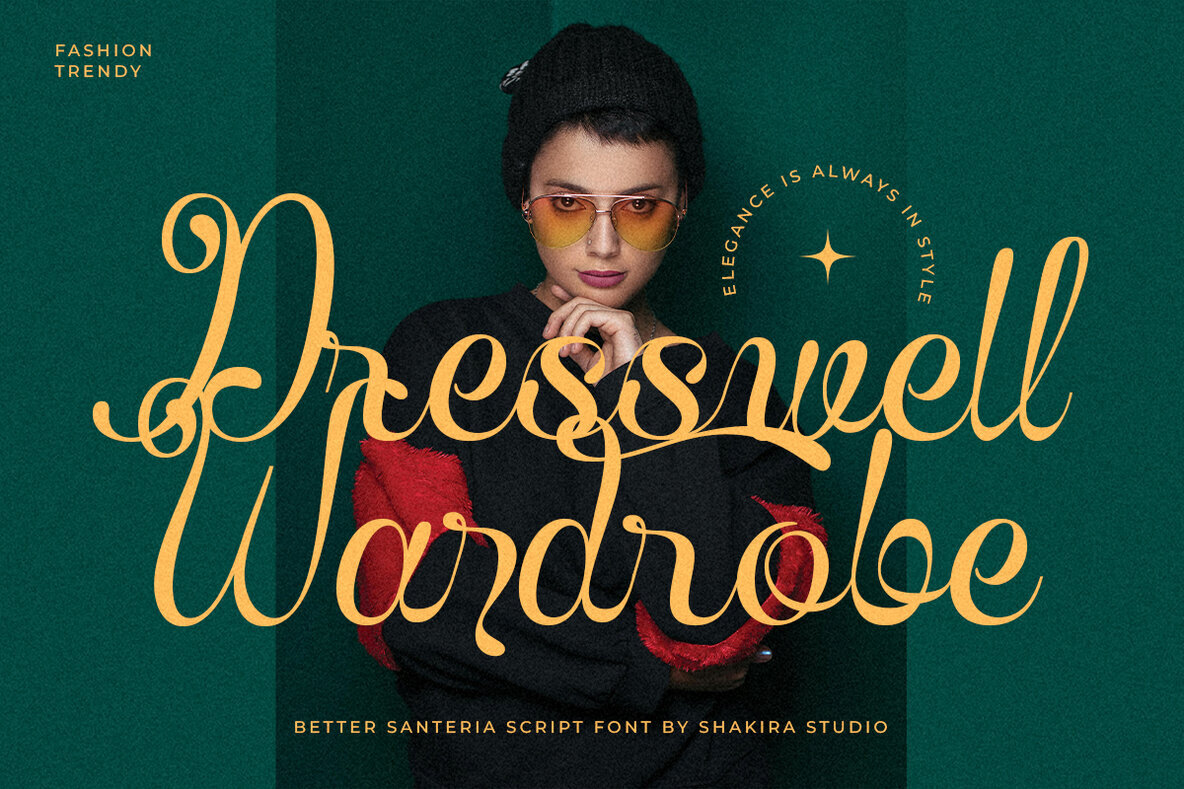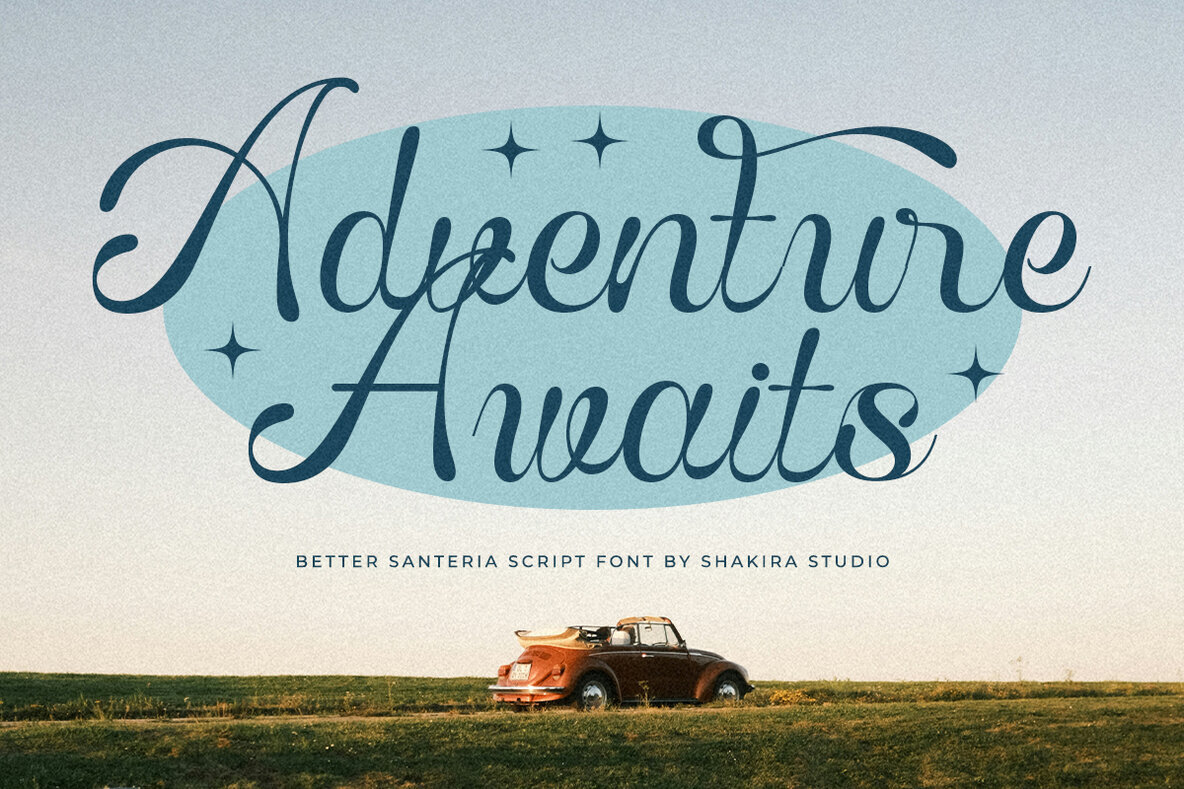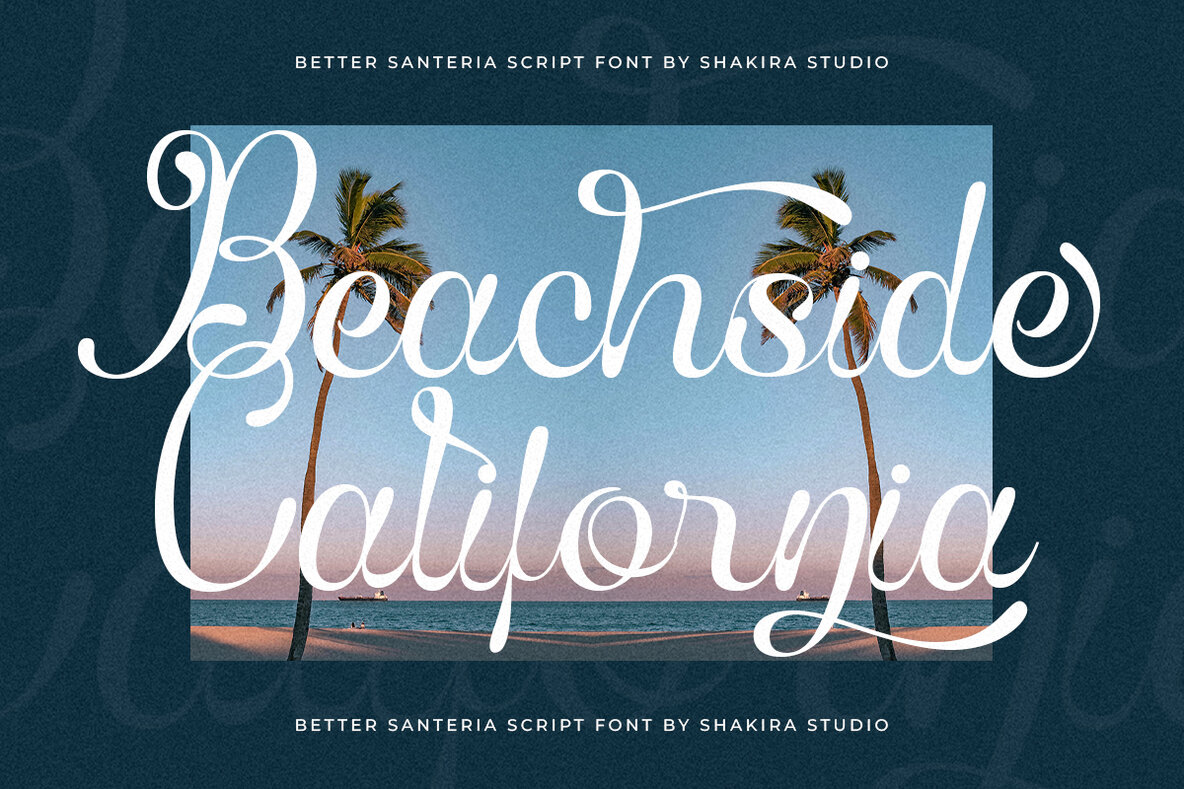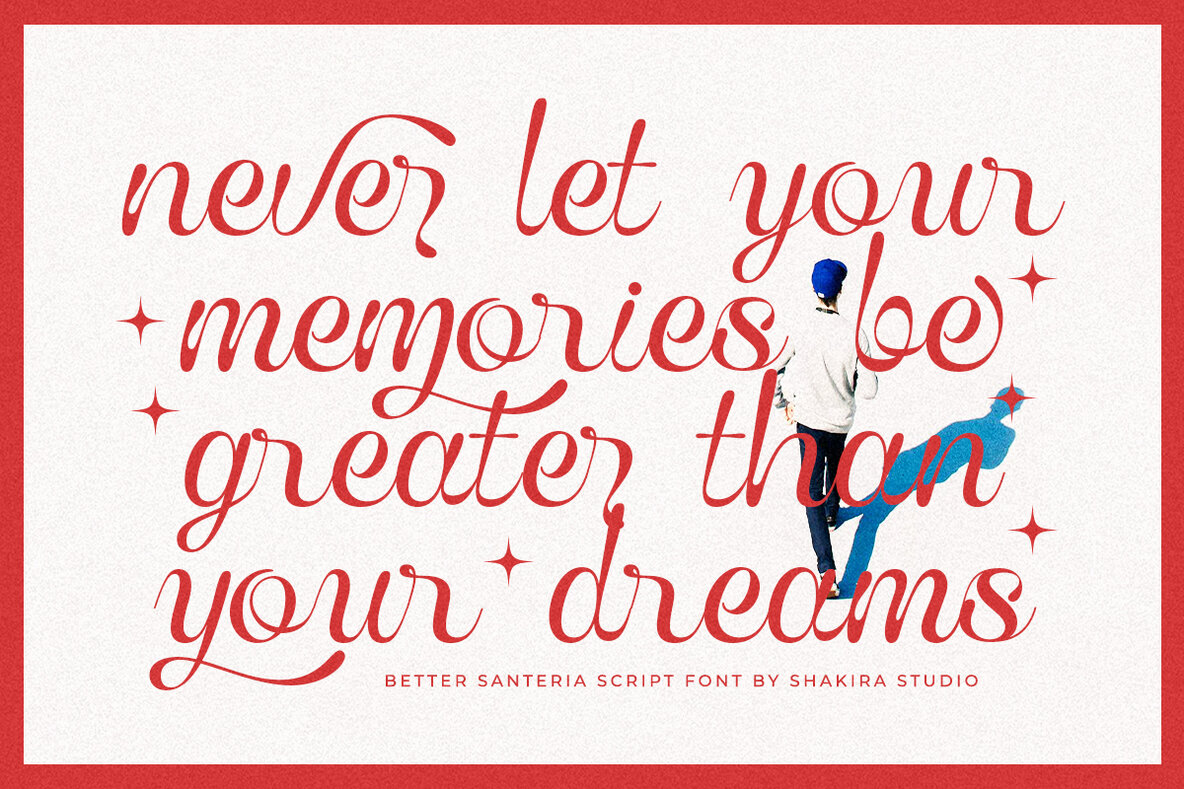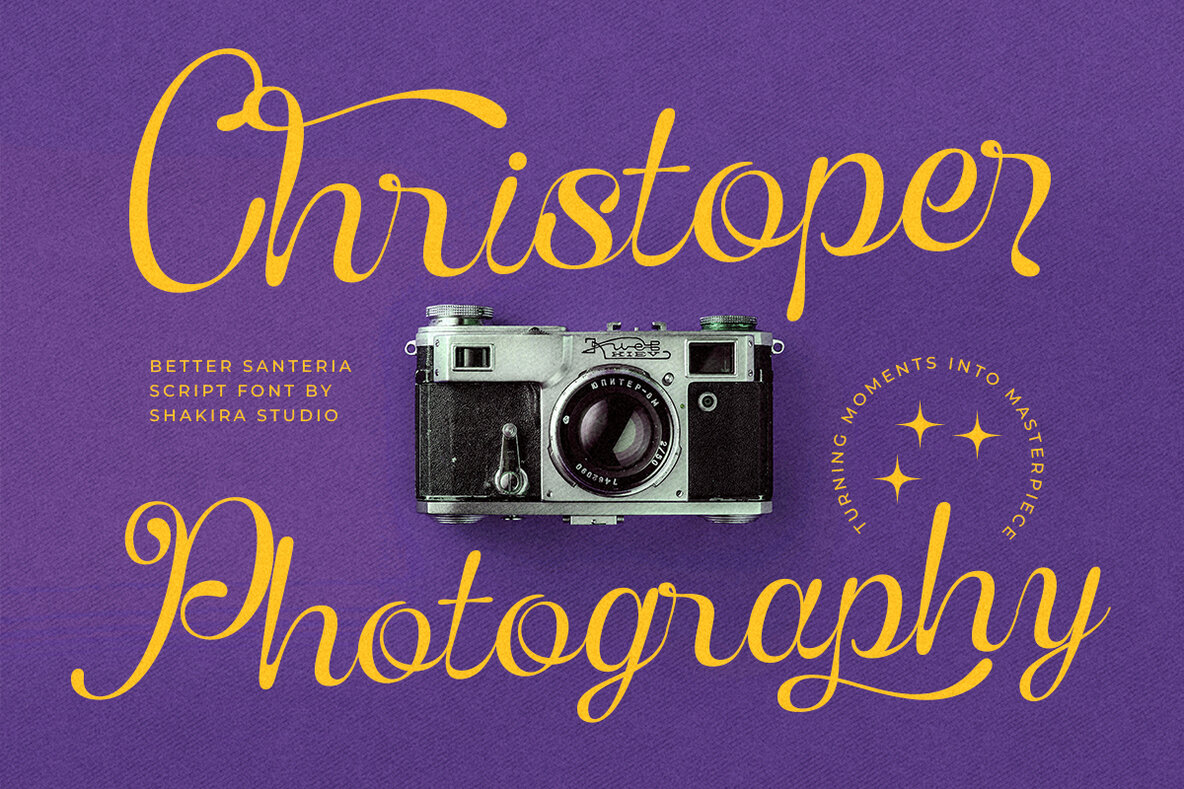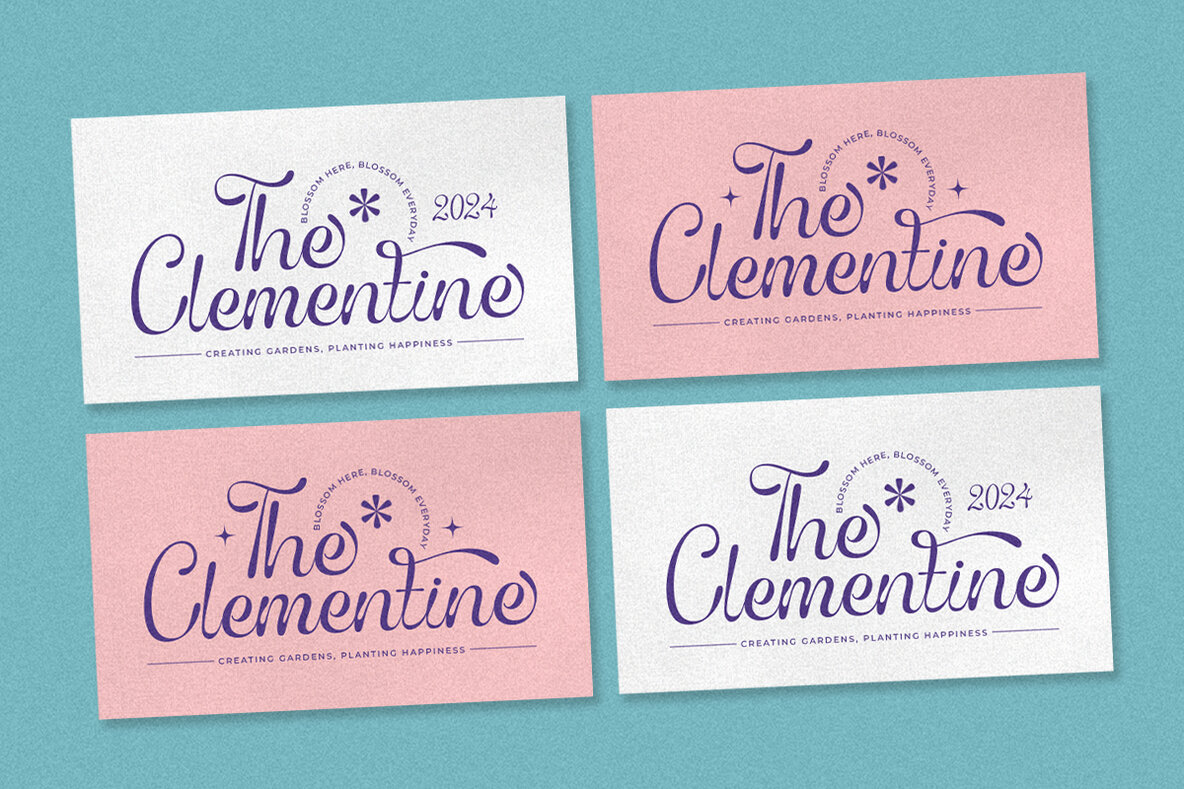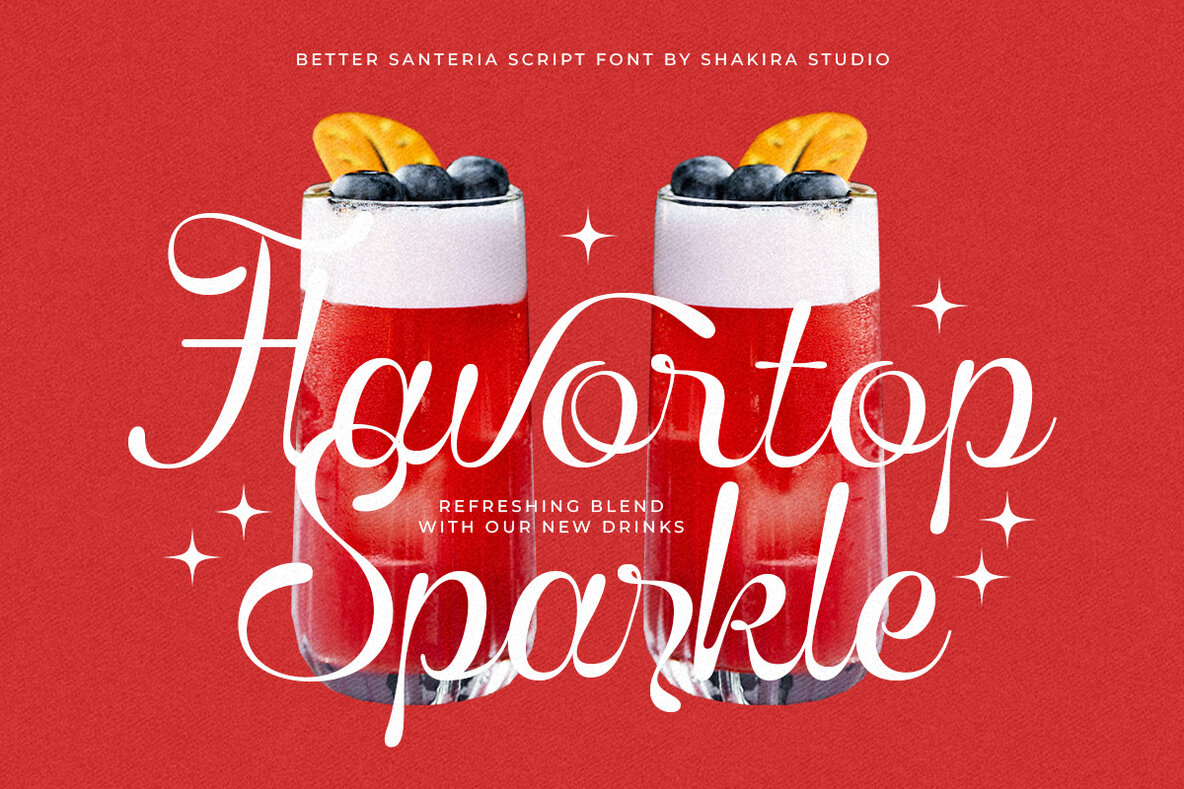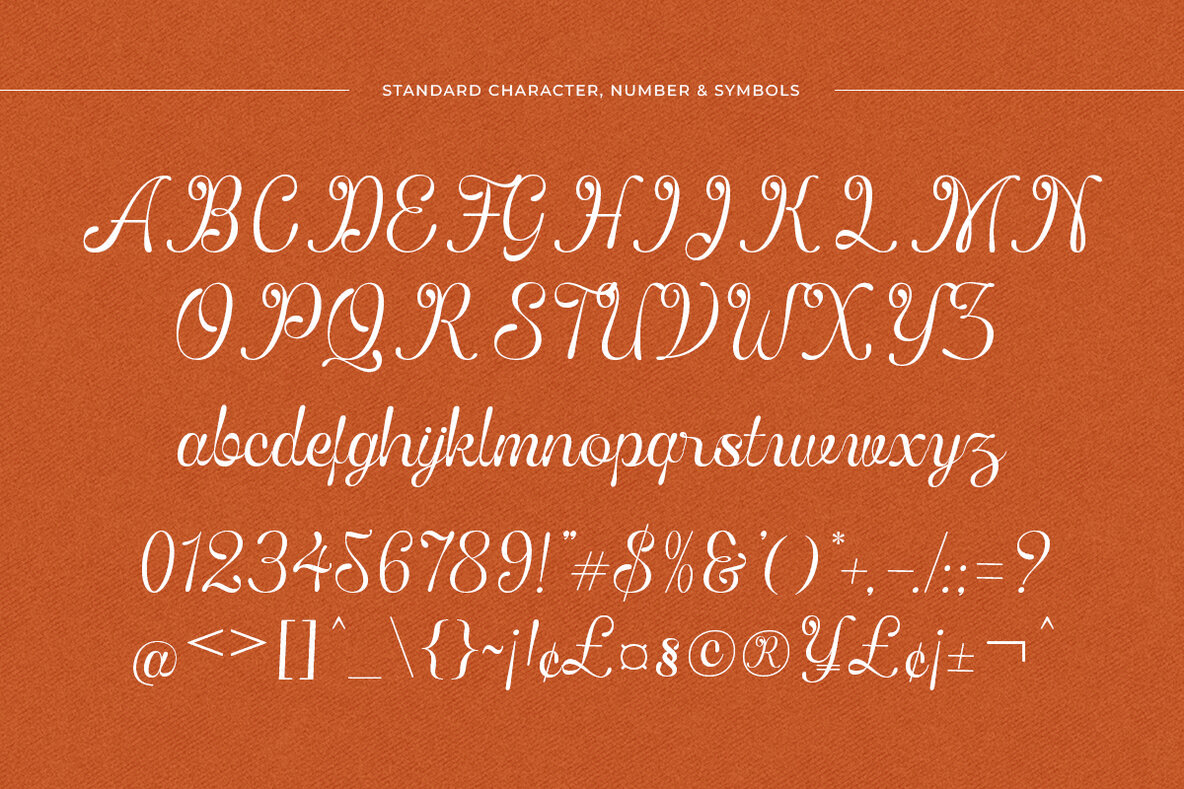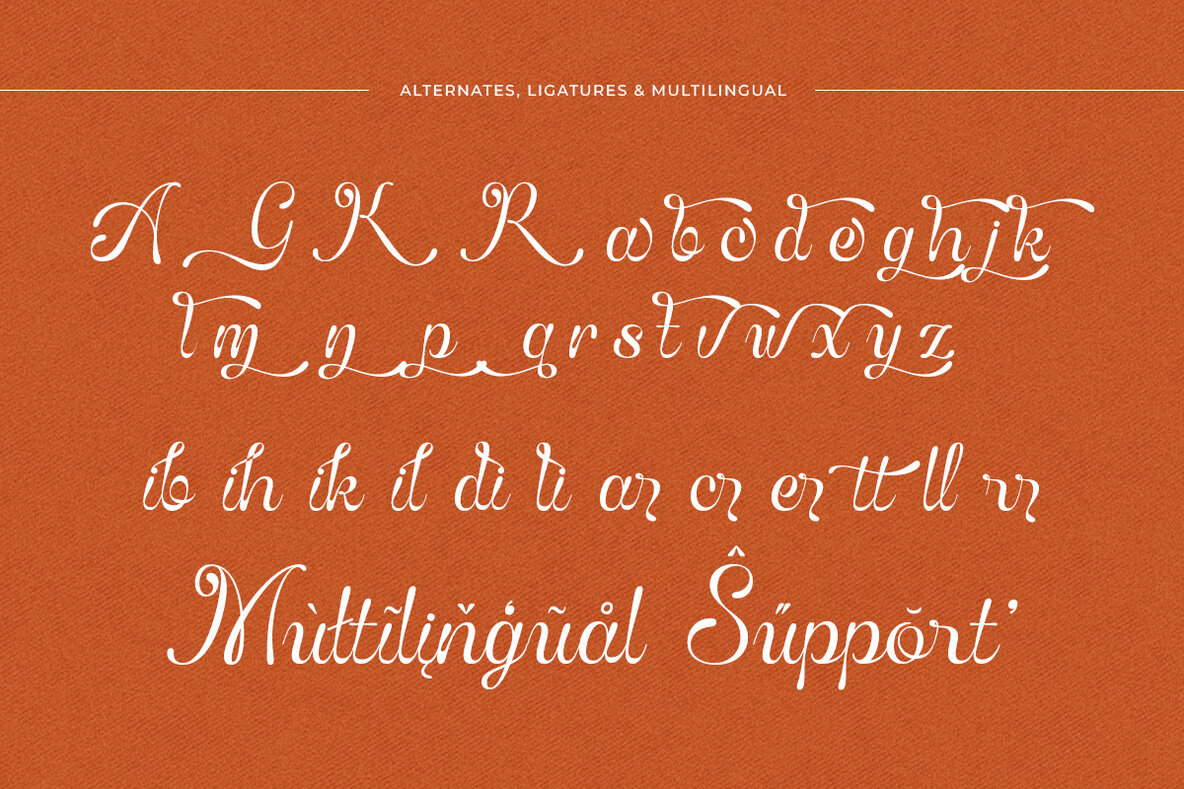
Better Santeria Font
Better Santeria Regular
Introducing a stylish handwritten script font that's perfect for designers seeking a personal and elegant touch. With its versatile selection of stylish alternates and ligatures, this font is ideal for creating unique branding, logos, and invitations. Whether you're working on social media graphics, product packaging, or wedding stationery, this font offers a creative flair, enhancing the overall impact of your design projects.
The font comes with a rich array of features including regular weights and multilingual symbols. Enjoy the benefits of OpenType features such as ligatures and alternates, making it highly functional across platforms like Adobe Illustrator, Adobe Photoshop, Adobe InDesign, and even Microsoft Word. With PUA Encoded Characters, its full range of stylish elements are accessible without needing additional design software. It supports a wide array of languages including Afrikaans, French, German, and many more, making it a versatile choice for diverse projects.